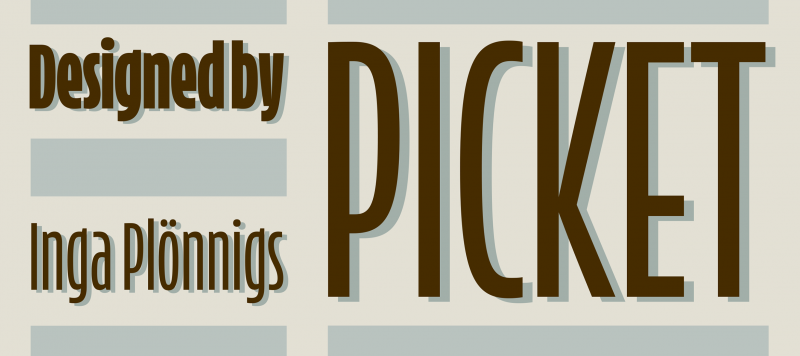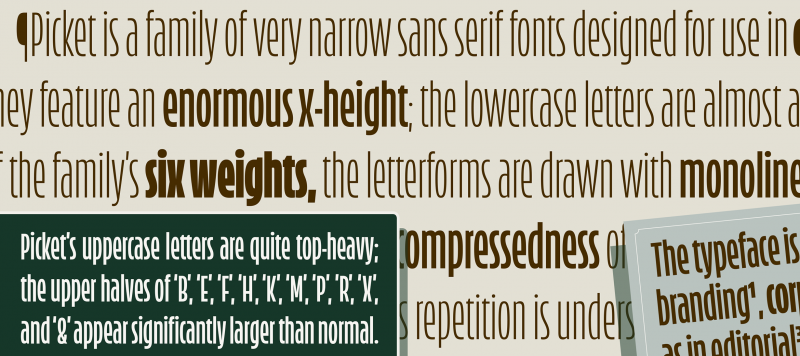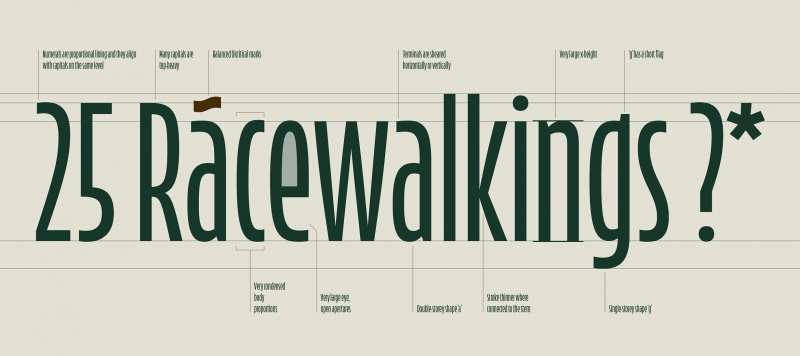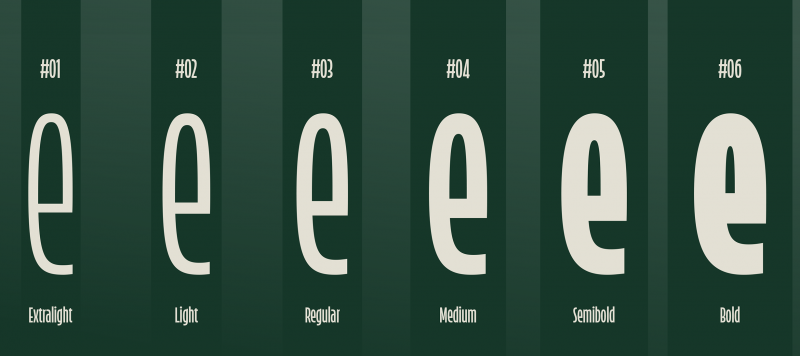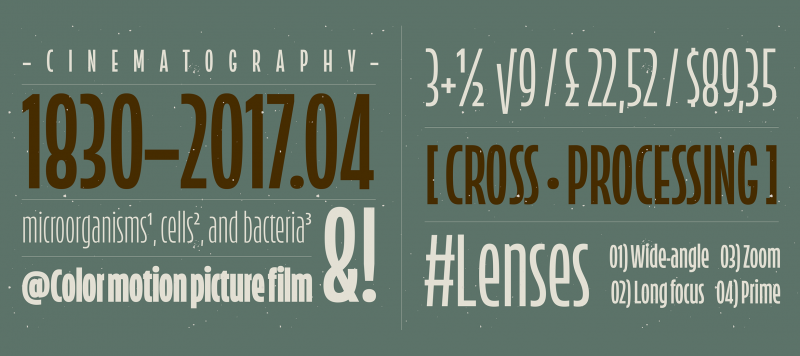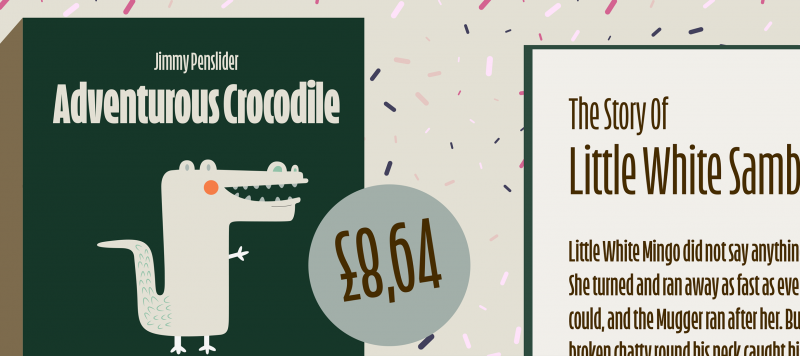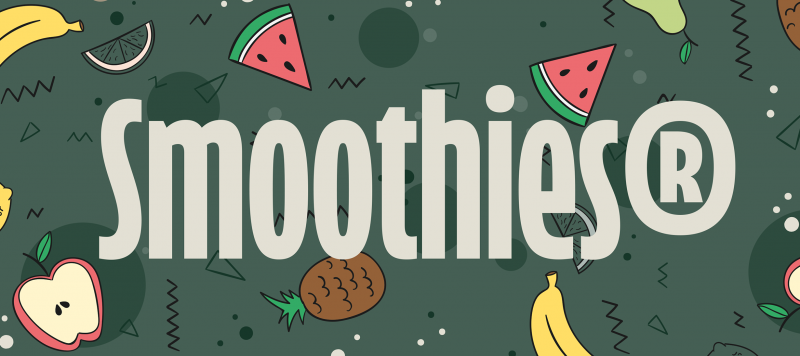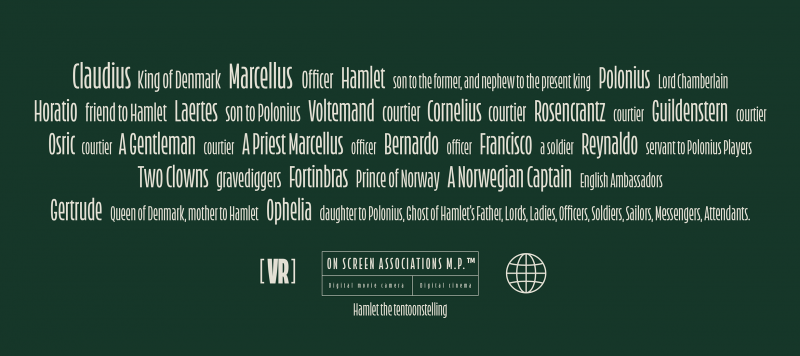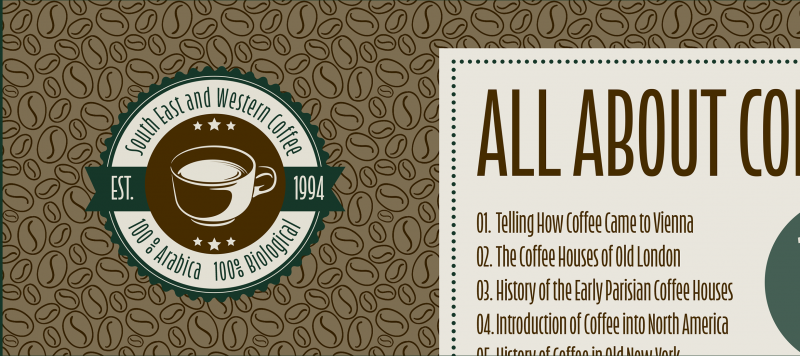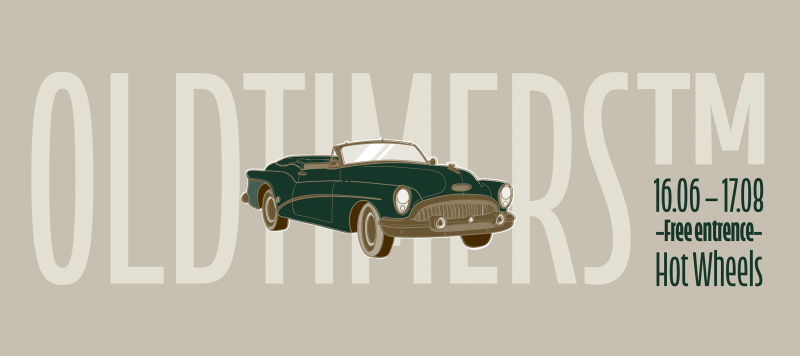
Picket is a family of very narrow sans serif fonts designed for use in display typography. They feature an enormous x-height; the lowercase letters are almost as tall as fonts’ capitals. In each of the family’s six weights, the letterforms are drawn with monolinear strokes. These decisions, combined with the general compressedness of the typeface, create a strong vertical-stroke rhythm. Indeed, this verticality and its repetition is underscored by the family’s name: Picket (as in a ‘picket fence’). Picket’s uppercase letters are quite top-heavy; the upper halves of ‘B’, ‘E’, ‘F’, ‘H’, ‘K’, ‘M’, ‘P’, ’R’, ‘X’, and ‘&’ appear significantly larger than normal. This element is present in the numerals, too – especially in the ‘3’, ‘5’, ‘8’, and ‘9’. The lowercase ‘a’ is double-storey, while the ‘g’ is single-storey. The right-hand side of the ‘g’ also has a short flag-like ascender. Each of the fonts contain an alternate ‘j’, which can be automatically substituted into text via the Contextual Alternates feature whenever it is needed to prevent a collision with the glyph coming before it. Picket should be used in very large sizes, because of its narrow width. The typeface is an excellent selection for use in branding, corporate identity design, as well as in editorial and packaging design. Picket is the work of Inga Plönnigs, an independent type designer in Berlin and a graduate of the Type & Media program at the Royal Academy of Art (KABK) in The Hague.
Family Name Picket
Available Style Extralight, Light, Regular, Medium, Semibold, Bold
Classification Display, Sans